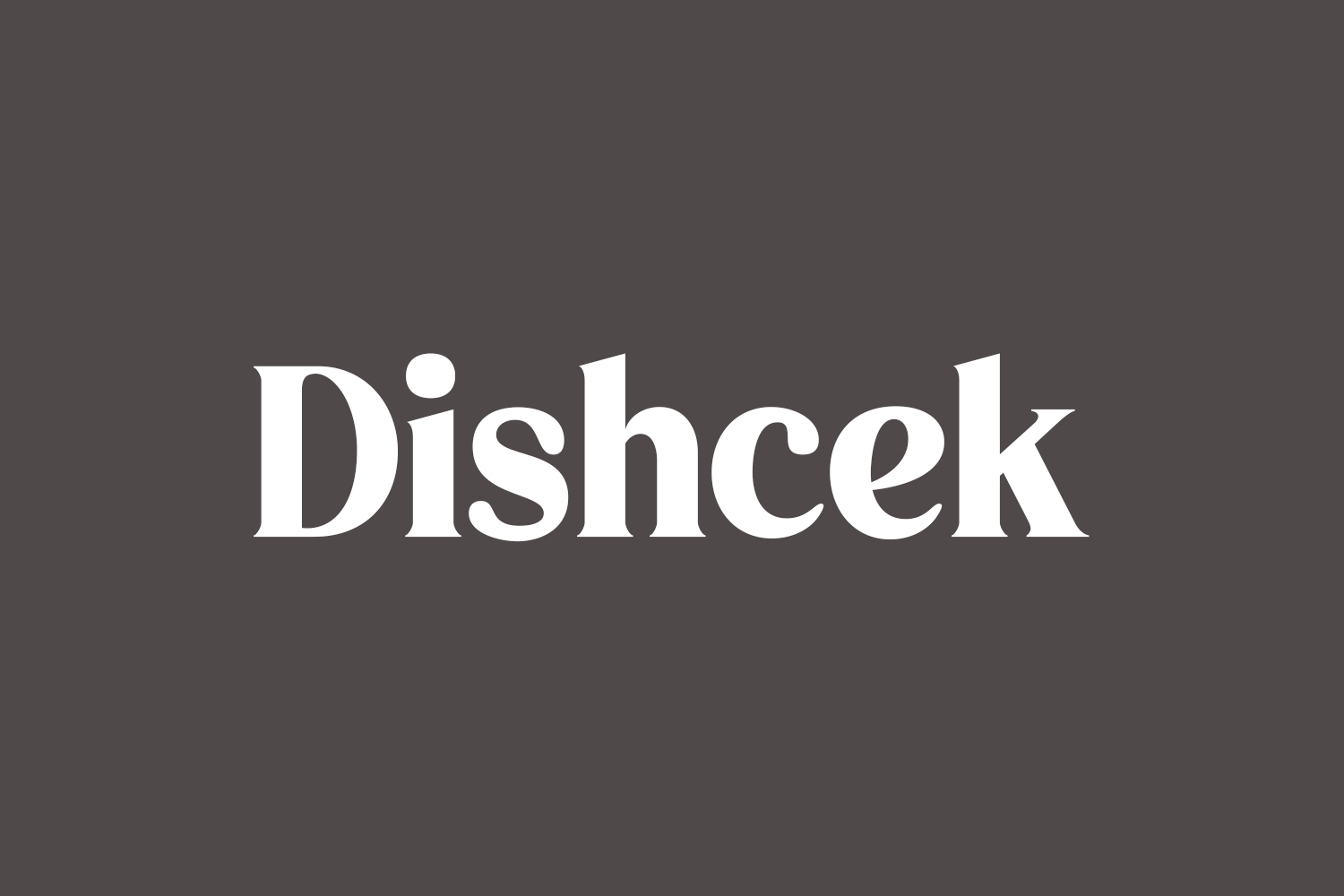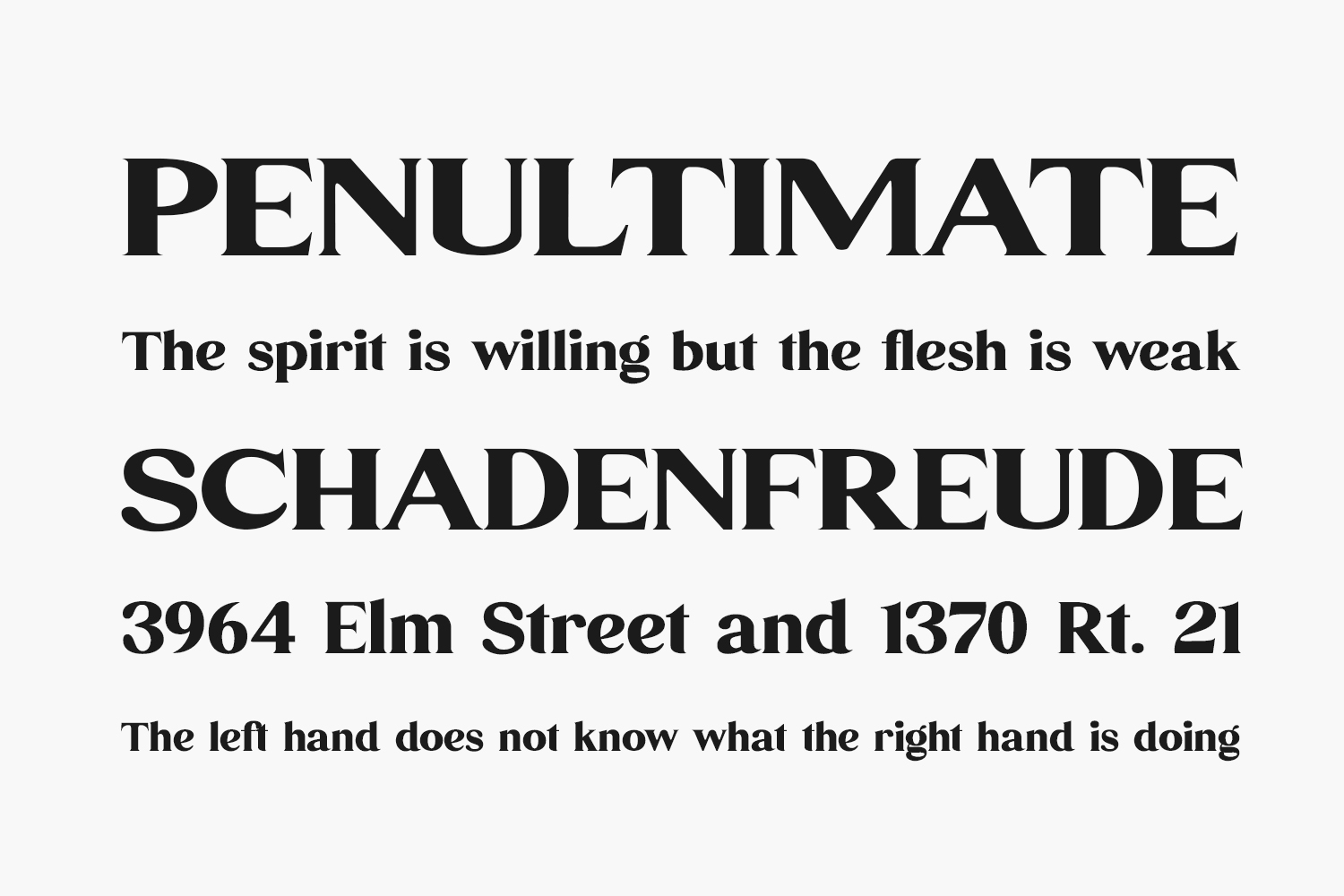
Dishcek Free Font offers a contemporary twist on the timeless serif font style, boasting a distinctive and opulent appearance. Ideal for crafting sophisticated and luxurious logos, book or movie titles, fashion brands, magazines, clothing designs, lettering, quotes, and beyond. Download the font for free if you need it for personal use or purchase the full version for commercial use.